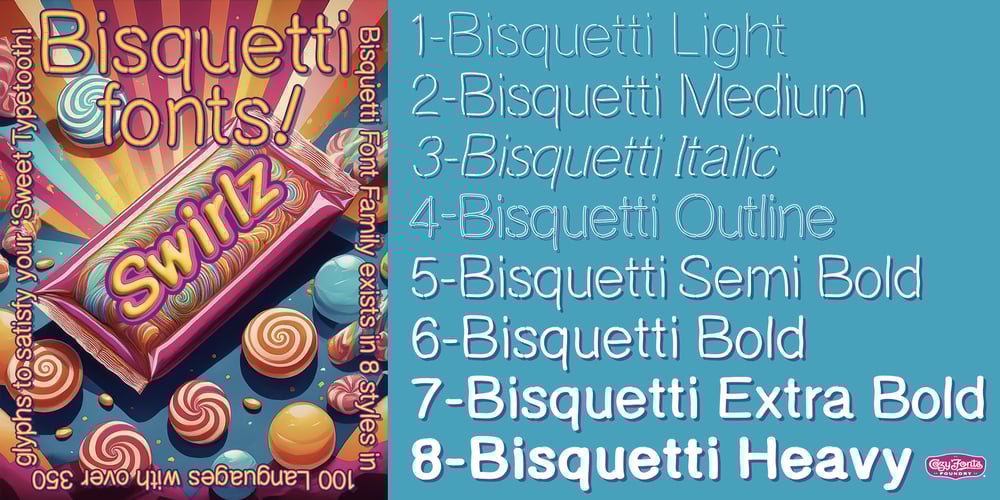
Bisquetti
Bisquetti font
Bisquetti Font Family was designed by Tom Nikosey and published by CozyFonts. Bisquetti contains 8 styles and family package options. Bisquetti Font Family is a handwritten, print-style font family that is eight-weight, ranging from light to heavy. Bisquetti fonts change personality with each style. The Light version is a refined yet personal hand-drawn style of writing where each glyph appears to be drawn with a pencil. As each style gains weight, it takes on a new personality. By the time the Heavy Weight version appears, one gets a feel of animated, cartoon-style flavor. The italic and outline members of this font family bring, yet again, other characteristics of personality traits yet all relate to the original, basic Regular style. Bisquetti was drawn, and built by Tom Nikosey for his Cozyfonts Foundry, a Los Angeles based design company established in 2012. Bisquetti is their 29th font family.